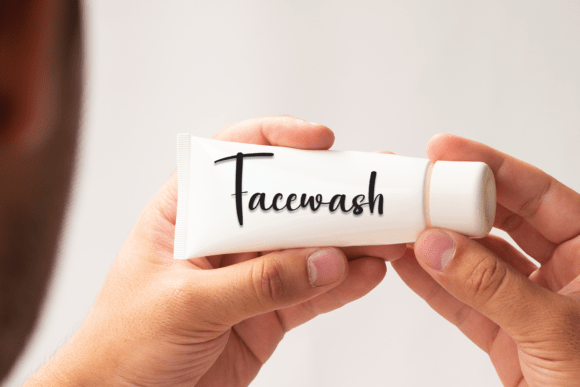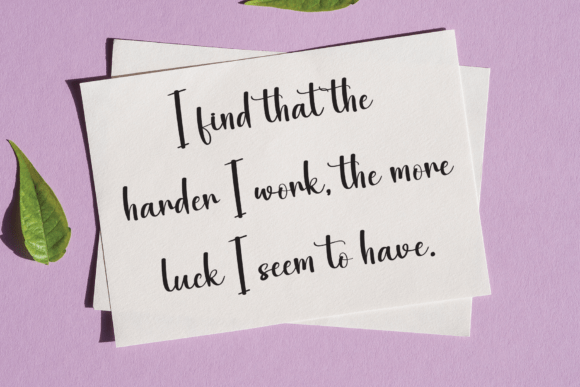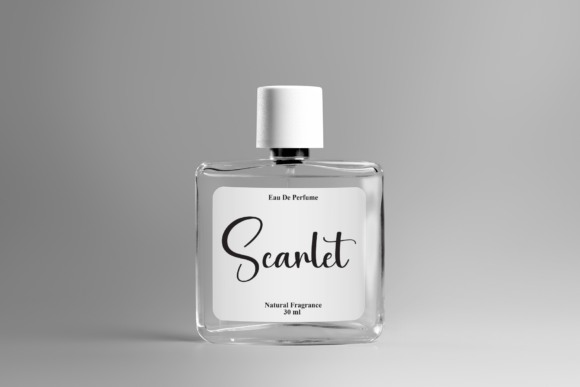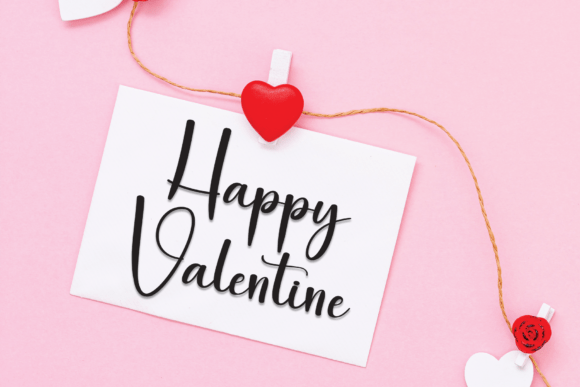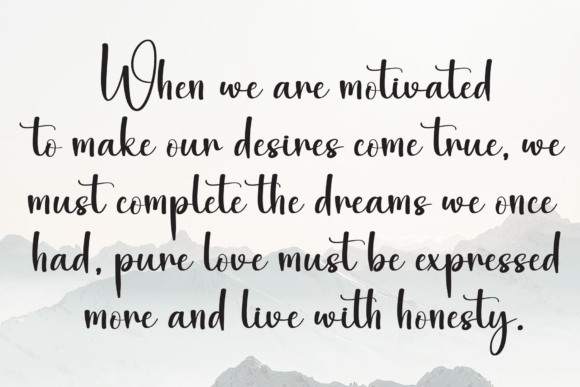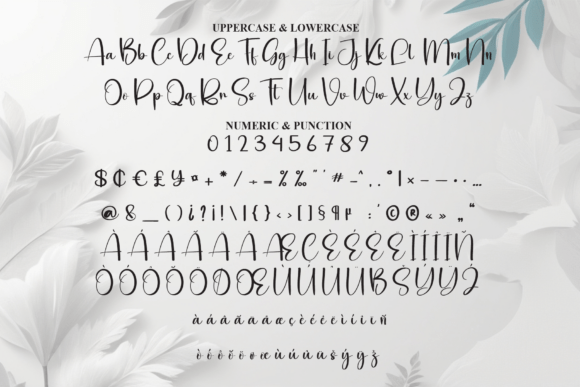
Introducing Handwriting Font: Elevate Your Designs with Elegant Penmanship
Handwriting is a beautiful and stylish script font that mimics natural, flowing penmanship. With its smooth curves and delicate strokes, this font is perfect for wedding invitations, branding, social media posts, and elegant designs. Whether you’re creating heartfelt messages or sophisticated logos, Handwriting adds a touch of warmth and charm to any project.
The Beauty of Handwriting Font
Handwriting Font is a meticulously crafted script font that replicates the fluidity and uniqueness of handwritten text. Its elegant strokes and refined letterforms make it an ideal choice for designers and crafters looking to add a personal touch to their work. The font’s natural flow and organic feel make it perfect for creating:
- Branding and logo designs
- Elegant headings and titles
- Personalized gifts and crafts
Key Features of Handwriting Font
Handwriting Font boasts a range of features that make it a versatile and stylish addition to any design project. Some of its key features include:
- Smooth curves and delicate strokes
- Natural flow and organic feel
- Elegant and refined letterforms
- Perfect for handwritten-style designs
Tips for Using Handwriting Font Effectively
To get the most out of Handwriting Font, here are some expert tips to keep in mind:
- Use it for headings and titles to add a touch of elegance
- Pair it with sans-serif fonts for a modern contrast
- Experiment with different colors and textures to enhance the font’s natural feel
- Use it for short paragraphs or captions to add a personal touch
- Take advantage of its versatility and use it across various design projects
Handwriting Font in the World of Design
Handwriting Font has become a popular choice among designers and crafters due to its unique ability to add a personal touch to any project. In the world of design, this font is often used to:
- Create custom wedding stationery and invitations
- Develop elegant branding and logo designs
- Enhance social media graphics and posts
- Design beautiful headings and titles for publications
- Add a personal touch to gifts and crafts
Why Choose Handwriting Font?
With so many fonts available, why choose Handwriting Font? Here are just a few reasons why this font stands out:
- Its unique and elegant style sets it apart from other fonts
- Its versatility makes it suitable for a wide range of design projects
- Its natural flow and organic feel make it perfect for handwritten-style designs
Handwriting Font is a beautiful and stylish script font that can elevate any design project with its elegant penmanship. Whether you’re a designer, crafter, or DIY enthusiast, this font is perfect for adding a touch of warmth and charm to your work. With its smooth curves, delicate strokes, and natural flow, Handwriting Font is sure to become a favorite in your design arsenal.